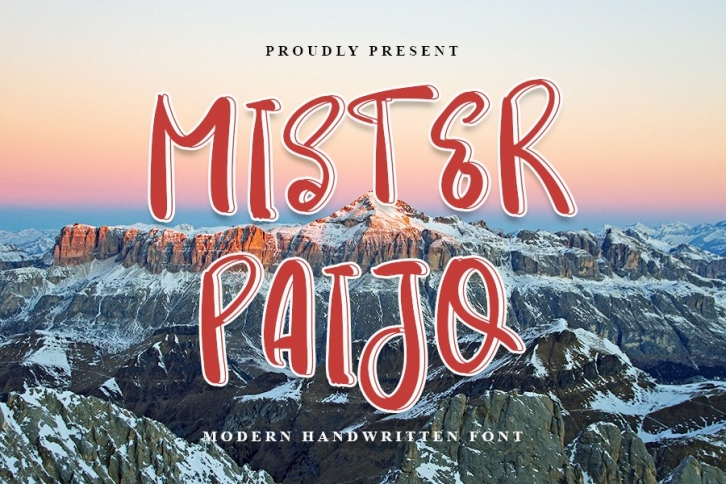
Mister Paijo is a beautiful font that was designed by NYA Letter. It's a great choice for designers and creatives who need such a font. It was released on December 3, 2020 and the file size is 14.73 MB. Mister Paijo may give a more youthful, expressive and casual look to your project. It is a very beautiful, refined, elegant, and high-quality font.